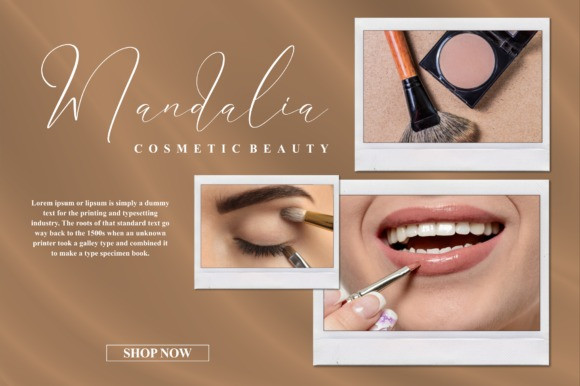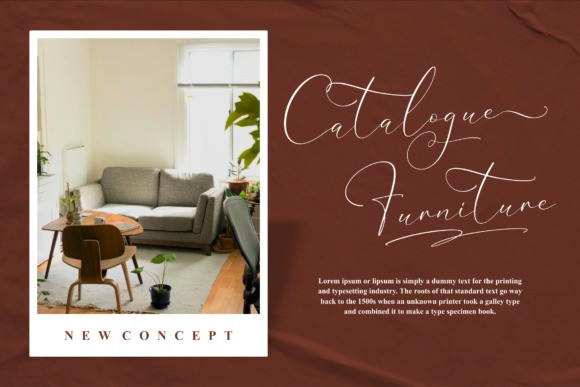
Falminga Charia Font
Falminga Charia is a beautiful script font, suitable for any projects such as: logos, branding projects, homeware designs, product packaging, mugs, quotes, posters, shopping bags, t-shirts, book covers, name card, invitation cards, greeting cards, and more. This font is PUA encoded which means you can access all of the glyphs and swashes with ease!